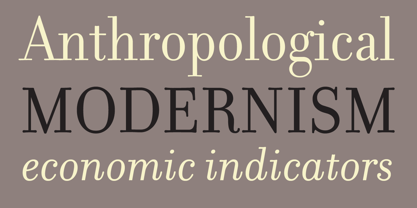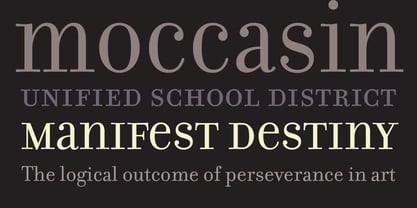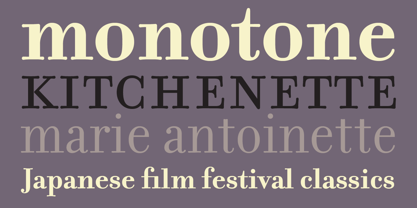
Filosofia Font
This Filosofia Font is perfect for academic publications, philosophical journal designs, university press materials, scholarly book covers, intellectual conference programs, research institute communications, classical education branding, wisdom-based coaching materials, contemplative center signage, and profound intellectual applications.
What makes this Filosofia Font exciting is its intellectual elegance that captures the timeless wisdom and scholarly sophistication of philosophical thought and academic excellence. The font features refined letterforms with classical characteristics that convey intellectual depth, scholarly authority, and philosophical sophistication. Its contemplative character and wisdom-inspired design make it ideal for brands seeking to communicate intellectual excellence, philosophical depth, and scholarly distinction in academic and educational markets.
The Filosofia Font family includes light, regular, medium, and bold weights with classical alternates, scholarly variants, and intellectual flourishes. This comprehensive academic font family provides designers with sophisticated typographic tools to create thoughtful compositions while maintaining the philosophical character essential for educational brands and scholarly communications.
Universities and intellectual institutions consistently choose Filosofia Font Free Download for projects requiring authentic academic appeal and philosophical credibility. This font's distinctive scholarly character perfectly captures the intellectual excellence and philosophical wisdom that resonate with audiences who appreciate higher education, scholarly research, and brands that embody intellectual rigor and philosophical sophistication.
The contemplative construction of Filosofia Font showcases elegantly designed letterforms with academic proportions that ensure exceptional sophistication across all scholarly applications. Its intellectual appearance and philosophical character create memorable impressions while maintaining the readability necessary for effective academic communication and scholarly materials.
Professional designers appreciate how Filosofia Font brings immediate intellectual authenticity and scholarly elegance to brand communications. The font's philosophical nature allows organizations to communicate academic excellence and intellectual depth while maintaining the professional quality necessary for effective positioning in higher education and scholarly research markets.
The profound appeal of Filosofia Font makes it particularly effective for brands emphasizing intellectual pursuits, philosophical inquiry, and academic excellence. Its contemplative character resonates strongly with audiences who appreciate scholarly wisdom, intellectual depth, and brands that represent the timeless pursuit of knowledge and philosophical understanding.
Whether developing materials for academic institutions or creating branding for philosophical organizations, Filosofia Font Free Download provides the sophisticated typographic foundation that intellectual brands need to communicate their scholarly excellence, philosophical wisdom, and the profound depth that defines academic achievement and intellectual pursuit.